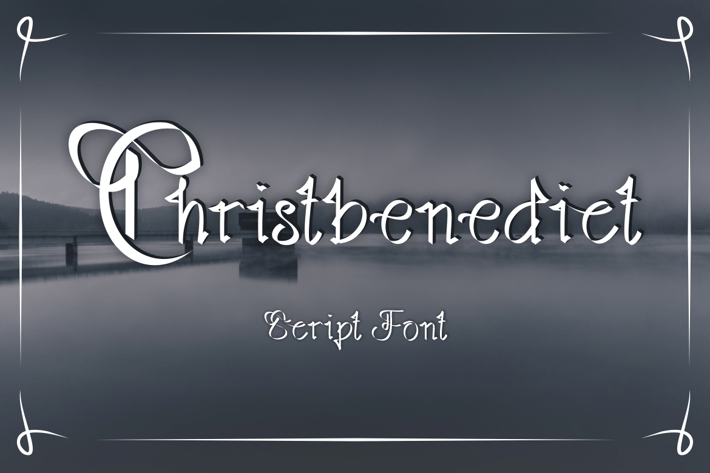
Christbenedict Script Font
Introducing our new product Christbenedict Script Font - Modern Font
Christbenedict Script Font - Modern Font is a bold and authentic display font. The font is suitable for any branding project like logo, t-shirt printing, esport, and many more. outstanding in a wide range of contexts.